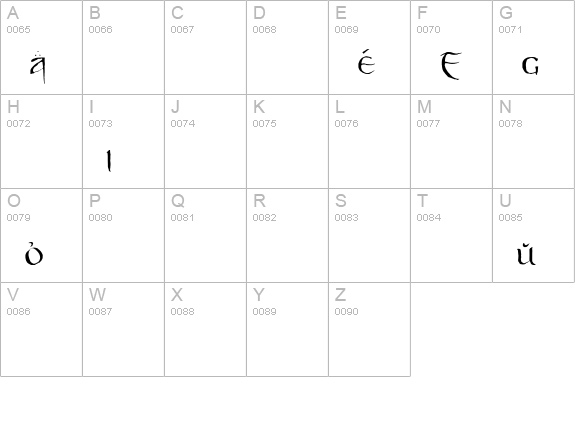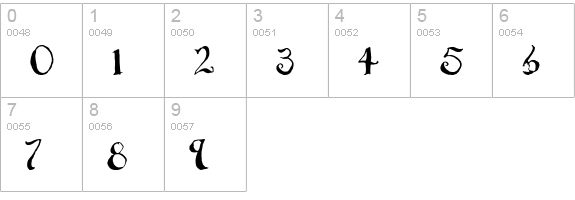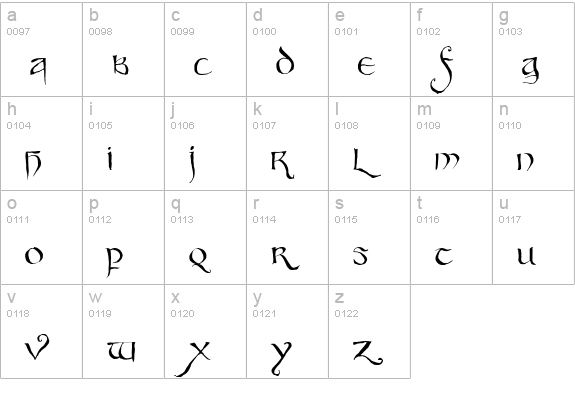
Party Business font is a vibrant and energetic typeface that brings a playful and festive element to any design project. With its bold and dynamic letterforms, this font exudes a lively and celebratory vibe, making it the perfect choice for party invitations, event posters, and other festive designs. This font is all about having a good time and letting loose, as it captures the spirit of joy and excitement that comes with every party. Its unique and eye-catching design ensures that your message will stand out and grab attention, creating a memorable impact on your audience. One of the best things about Party Business font is that it is freely available to download at FontsMarket.com. This means that you can easily access and use this font without any restrictions or limitations. Whether you're a professional designer or simply someone who enjoys creating personalized party invitations, this font is a valuable asset that you can add to your collection. So, why settle for generic and dull fonts when you can have Party Business font? Let your creativity soar and bring your party-themed designs to life with this bold and exciting typeface. Download Party Business font today from FontsMarket.com and get ready to make a statement at your next event!